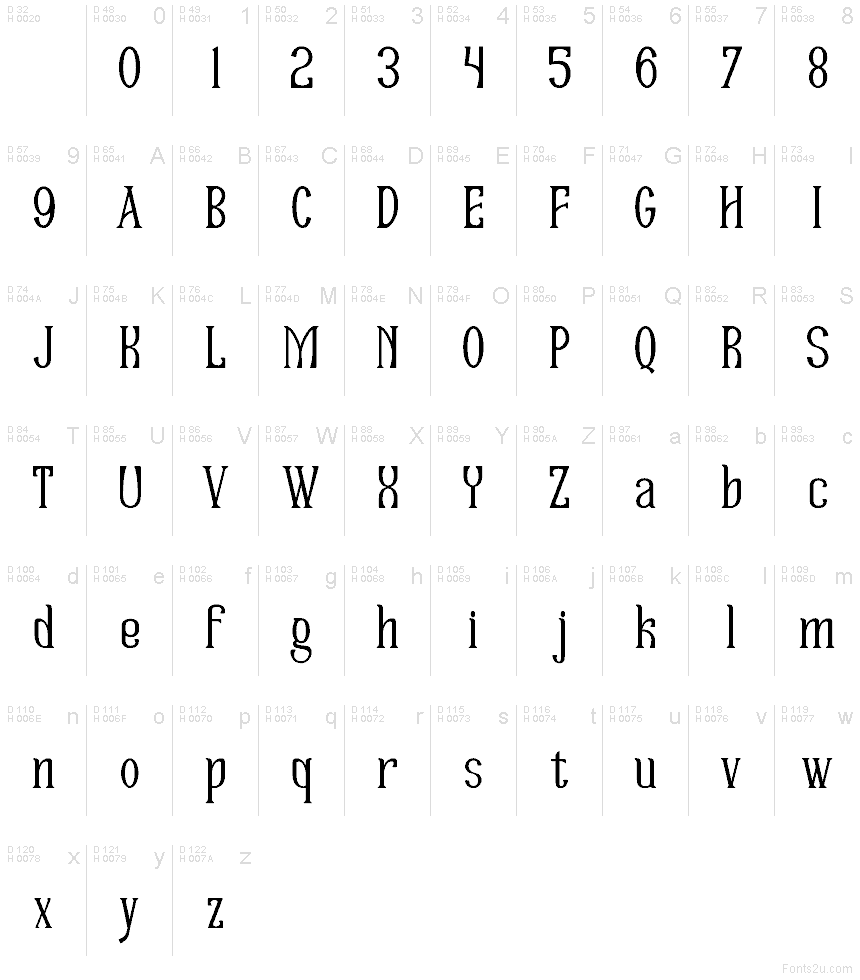
Floreste
Floreste font by Krakenbox Std is a free retro display typeface. Its signature look comes from sculpted verticals and rounded, petal-like curves that feel both botanical and bold—think inky stems meeting soft bowls. The rhythm is steady and upright, so even with its flourishes, it reads clean and confident at large sizes.
Using Floreste, headlines gain a lush, old-world charm that shines on boutique branding, perfume packaging, café menus, wine labels, posters, and book covers. The compact spacing holds shapes tightly together, creating a rich texture—give it a touch of tracking for air. Pair this free font with a simple geometric sans for body copy to keep the spotlight on those organic curves.